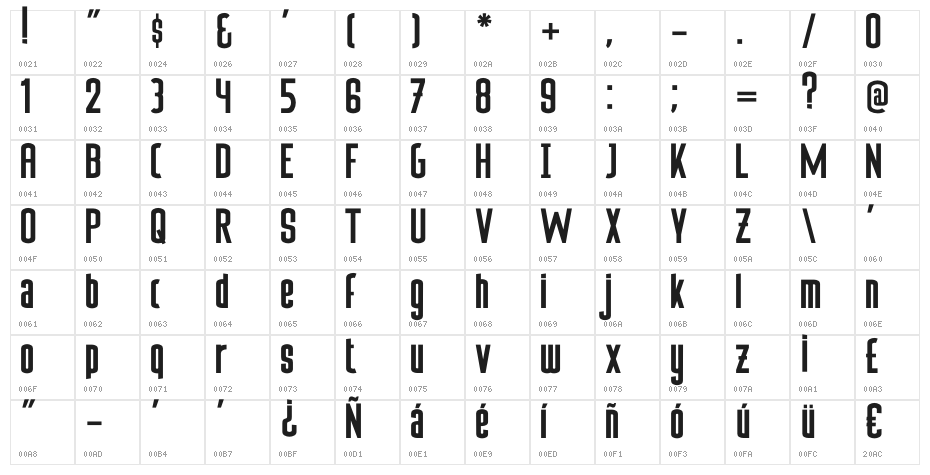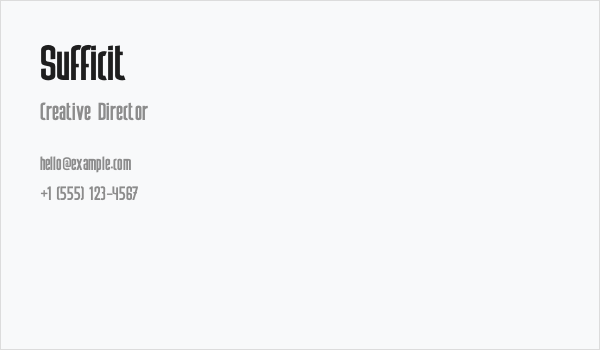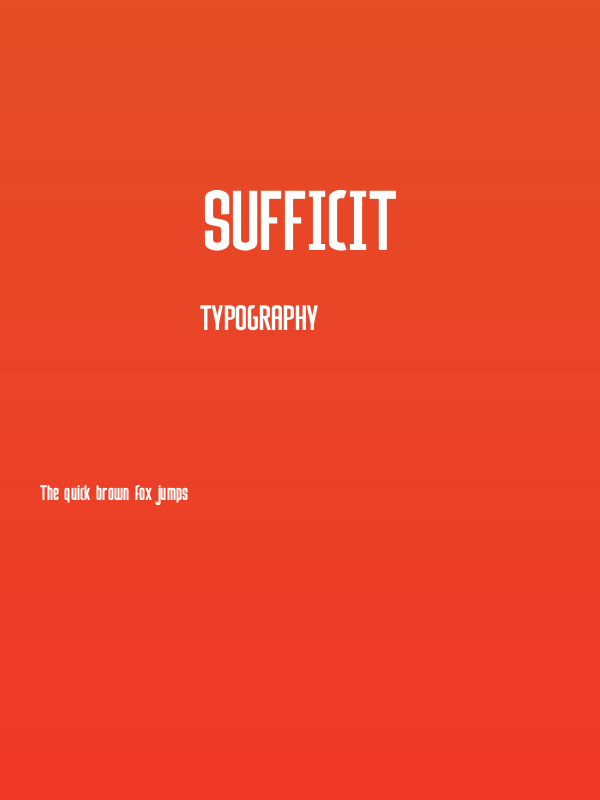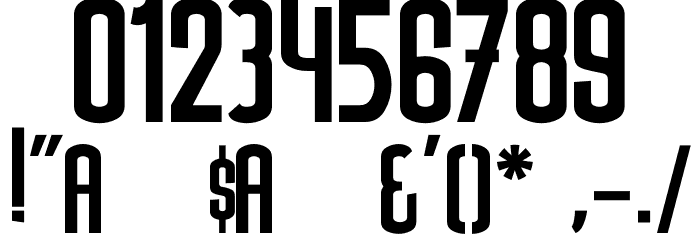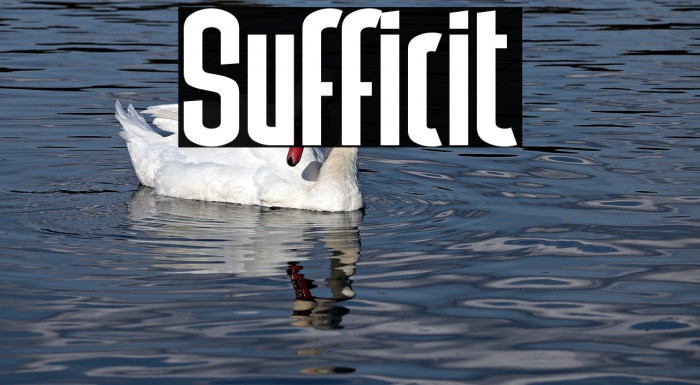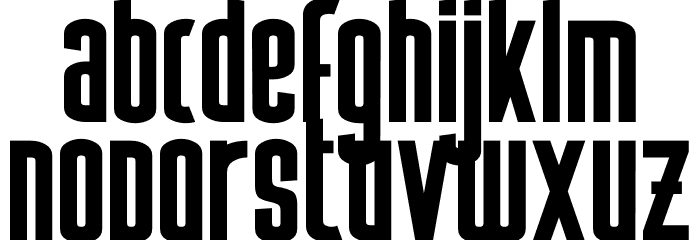
Sufficit Font
Sufficit Description
This font features a bold, geometric design with a strong presence. The characters are tall and narrow, giving it an elongated appearance. The uppercase letters are particularly striking, with sharp angles and clean lines that convey a sense of modernity and strength. The lowercase letters maintain the same geometric style, ensuring consistency across the typeface. Numbers are equally bold and clear, making them suitable for impactful displays. Special characters are designed to match the overall aesthetic, with a focus on clarity and style. This font is ideal for projects that require a bold statement and a modern touch.